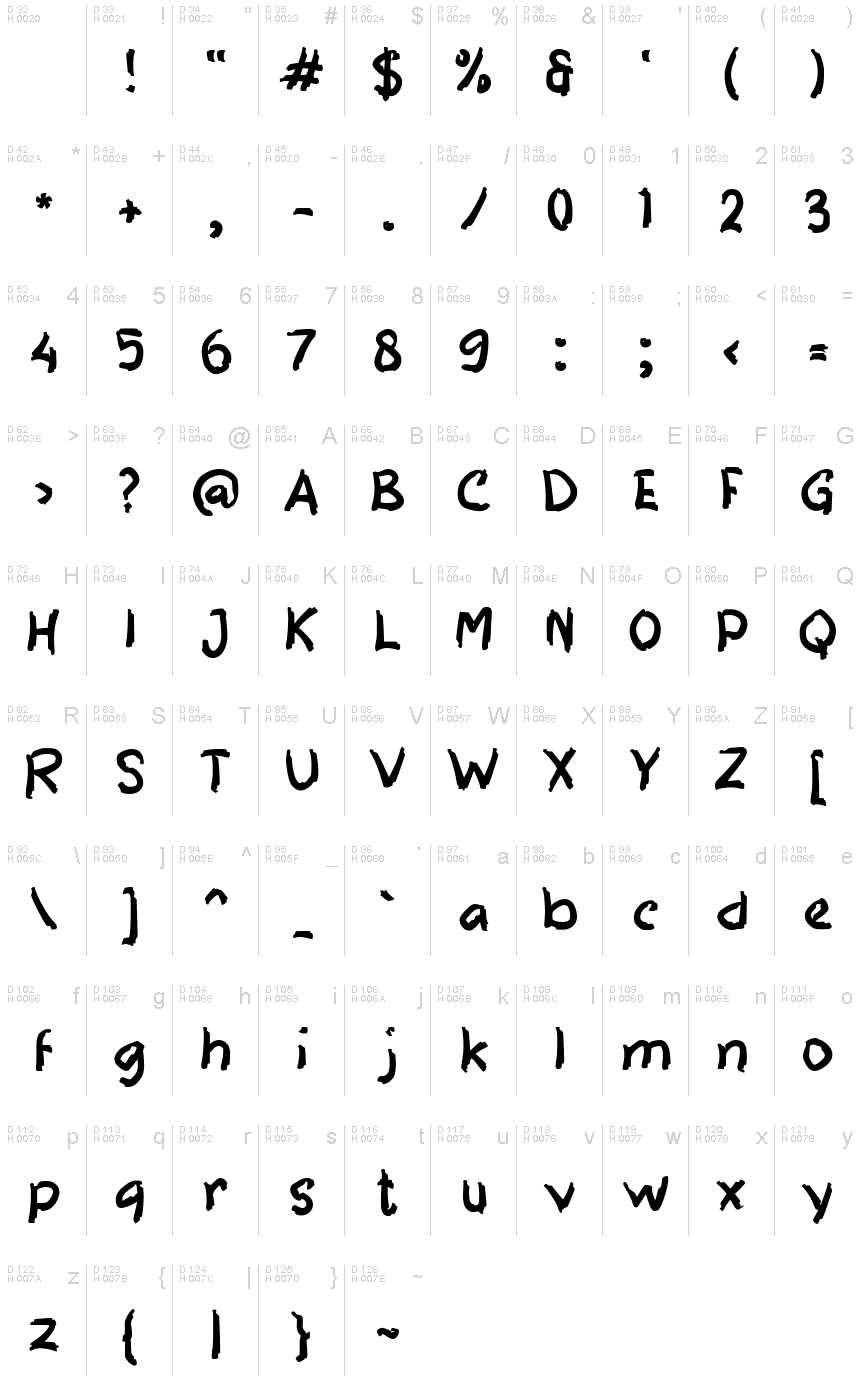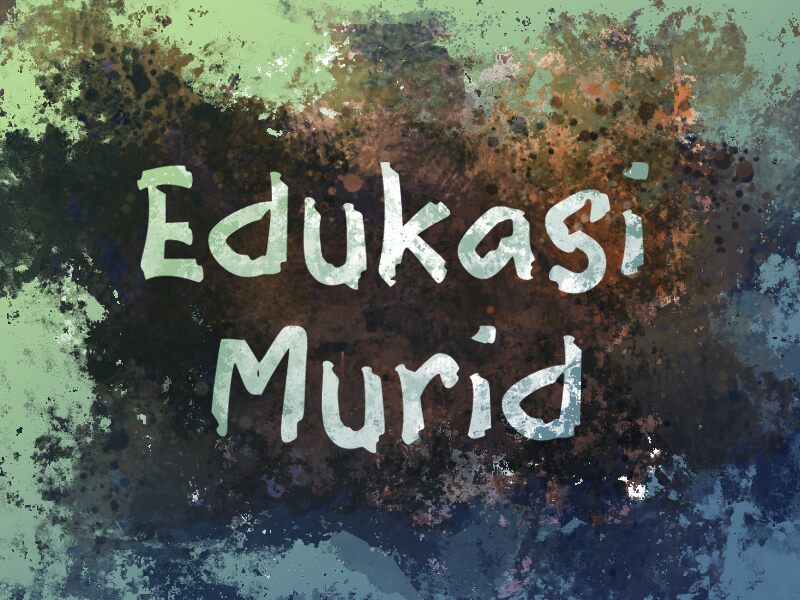
Edukasi Murid
Edukasi Murid, designed by Wahyu Eka Prasetya, is a script font with a trashy style. It's suitable for projects that need a bold and modern look such as branding, posters, and social media graphics.